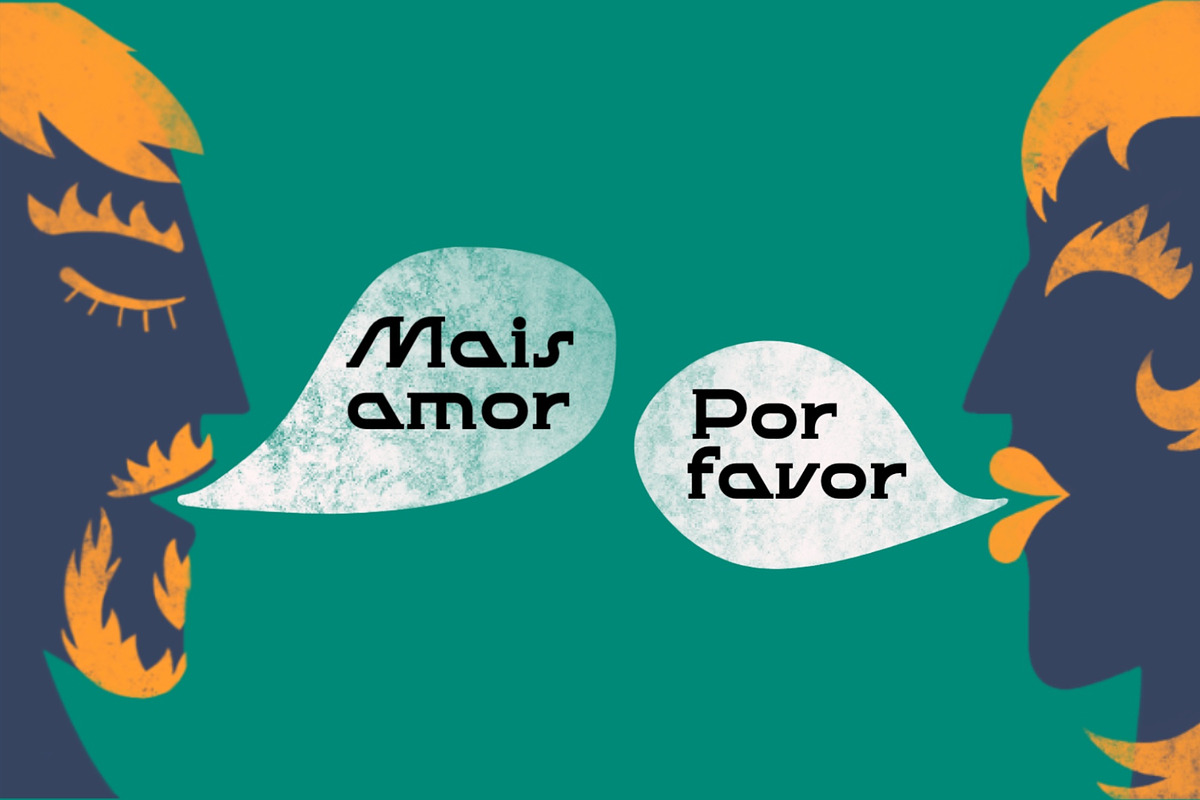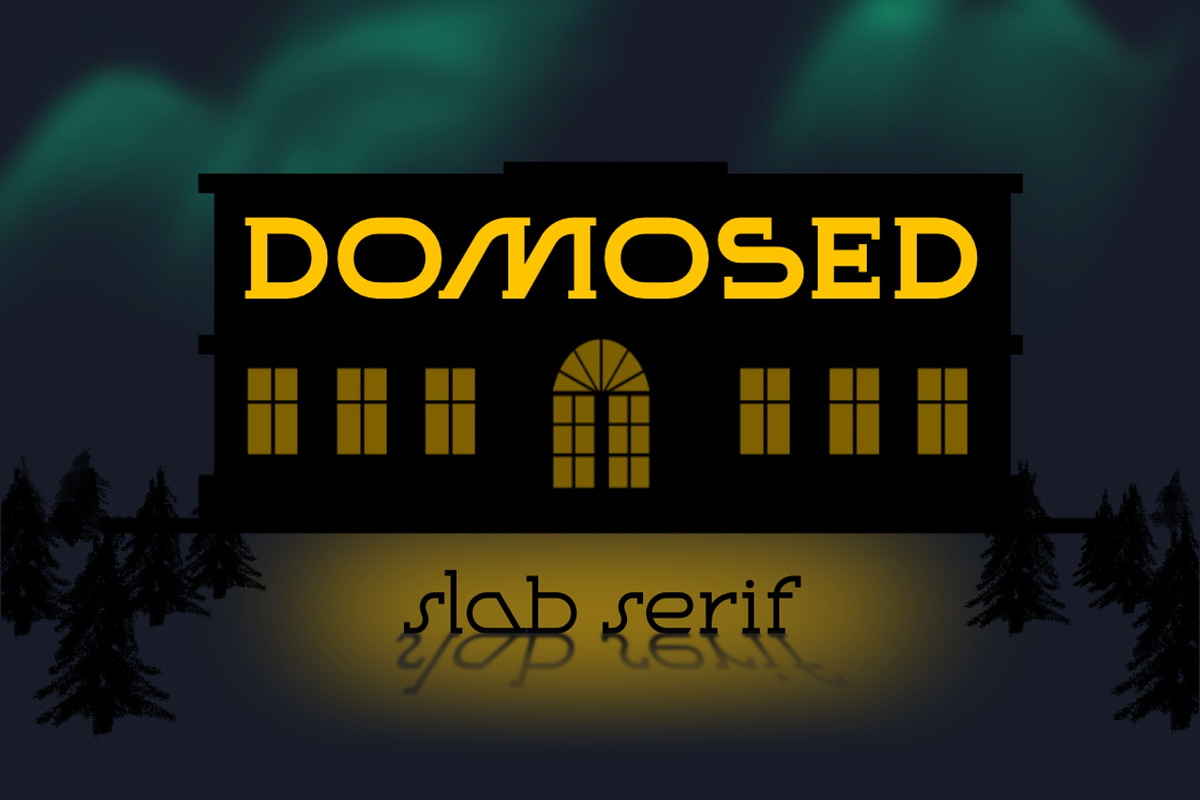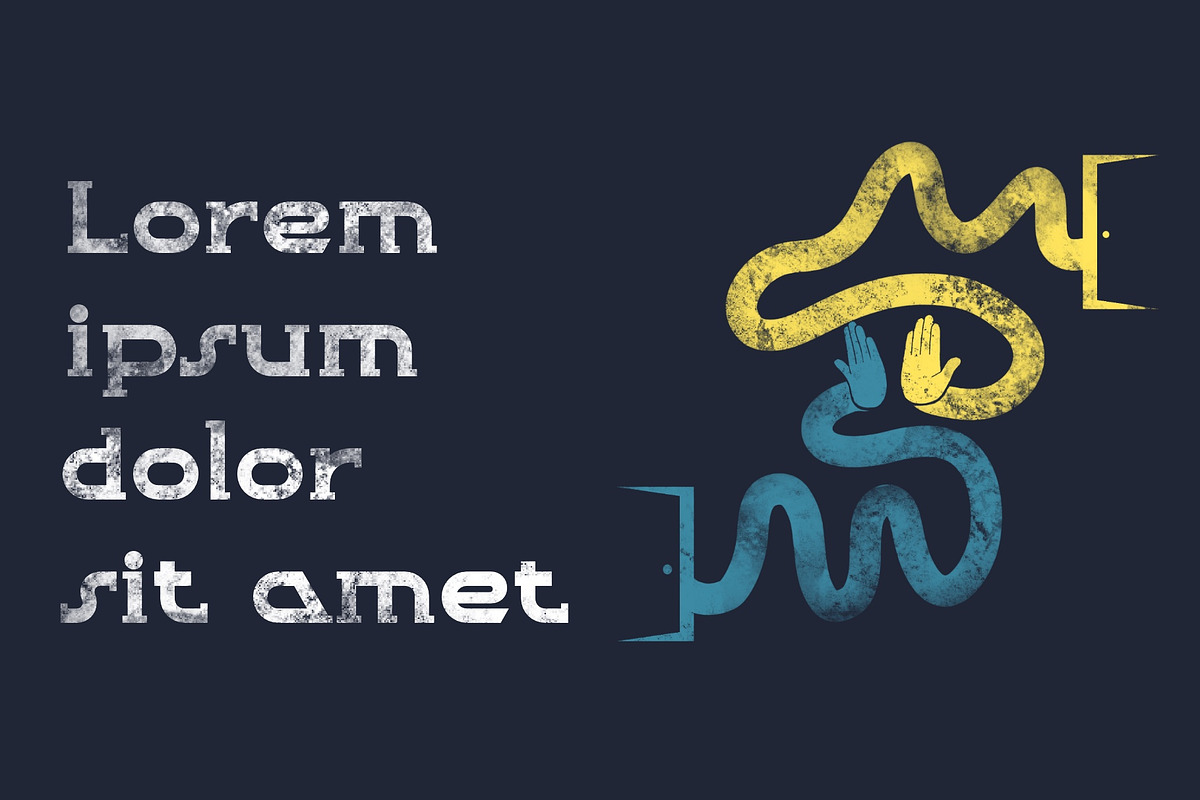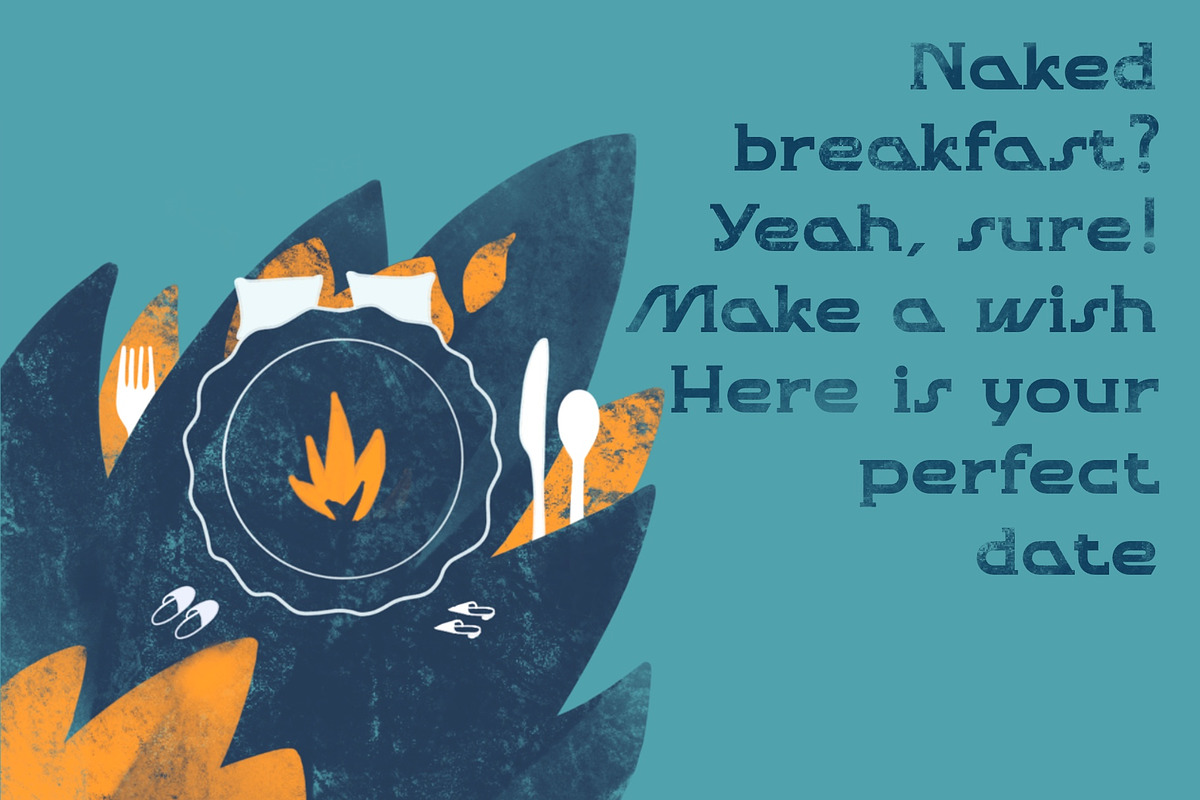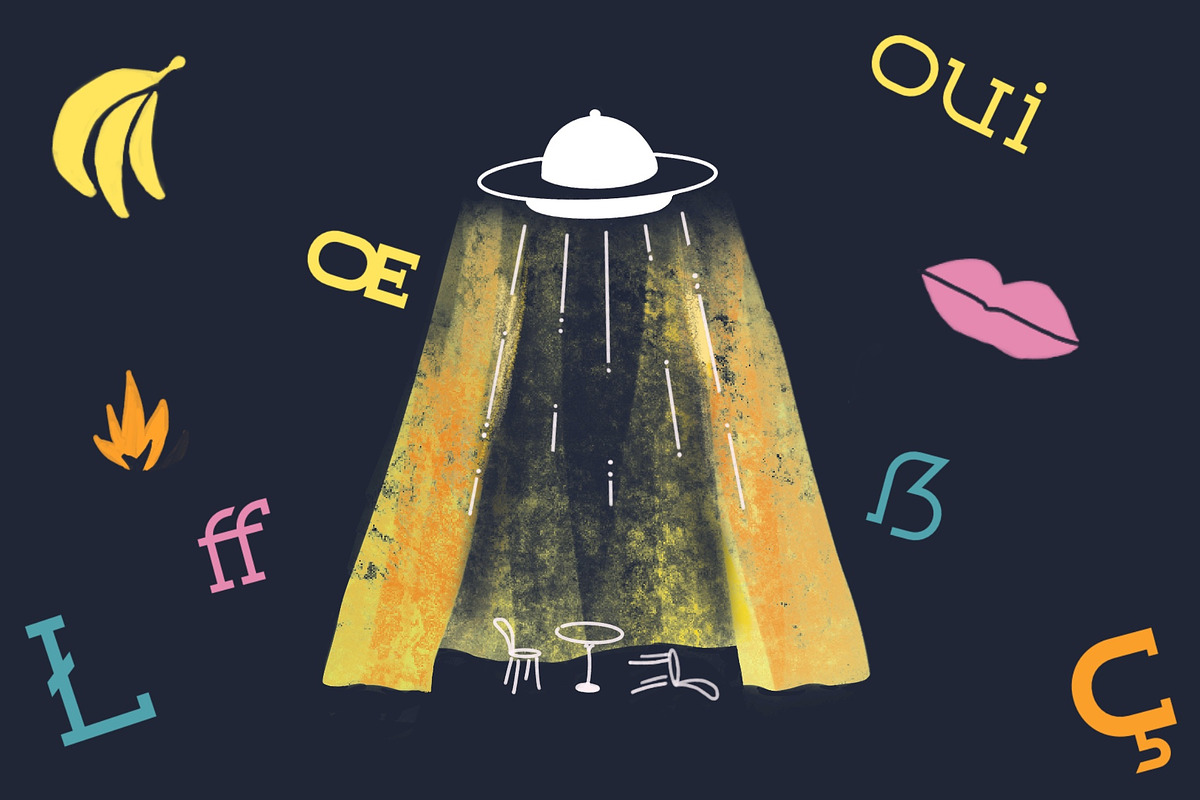
Domosed SS
Domosed SS (slab serif) typeface was build during lockdown. As a result of home sitting it appears in two weights. It refers to Italian futurism when all generation understand global changes of industrial revolution. The forth industrial revolution appears with new rules but the main idea is the same – simplifying the processes. Causing the vibe of a bright phenomenon I want you to use my font to match to zeitgeist.